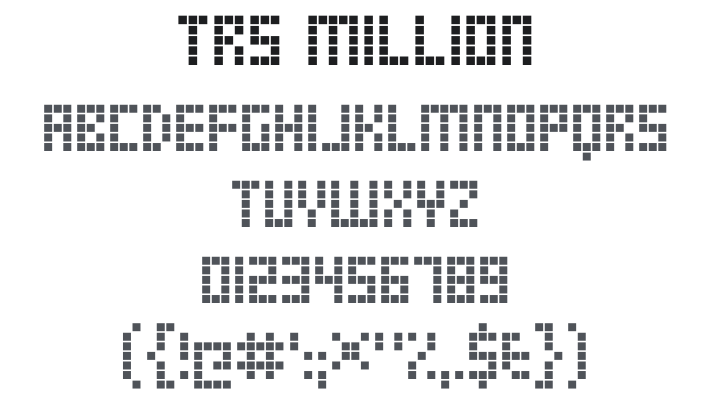
TRS Million Font Family
About TRS Million
TRS-Million is a serious, bold pixel headline typeface built on a dot-matrix grid — clean, blocky letterforms constructed from evenly spaced square pixels, evoking large LED scoreboards and retro digital displays. The companion Twinkle layer adds pseudorandom dots that simulate malfunctioning or differently-lit LEDs for a glitchy, worn-out effect. Perfect for sports scoreboards, retro tech aesthetics, cyberpunk interfaces, game UI designs, and any headline channeling classic digital display nostalgia.